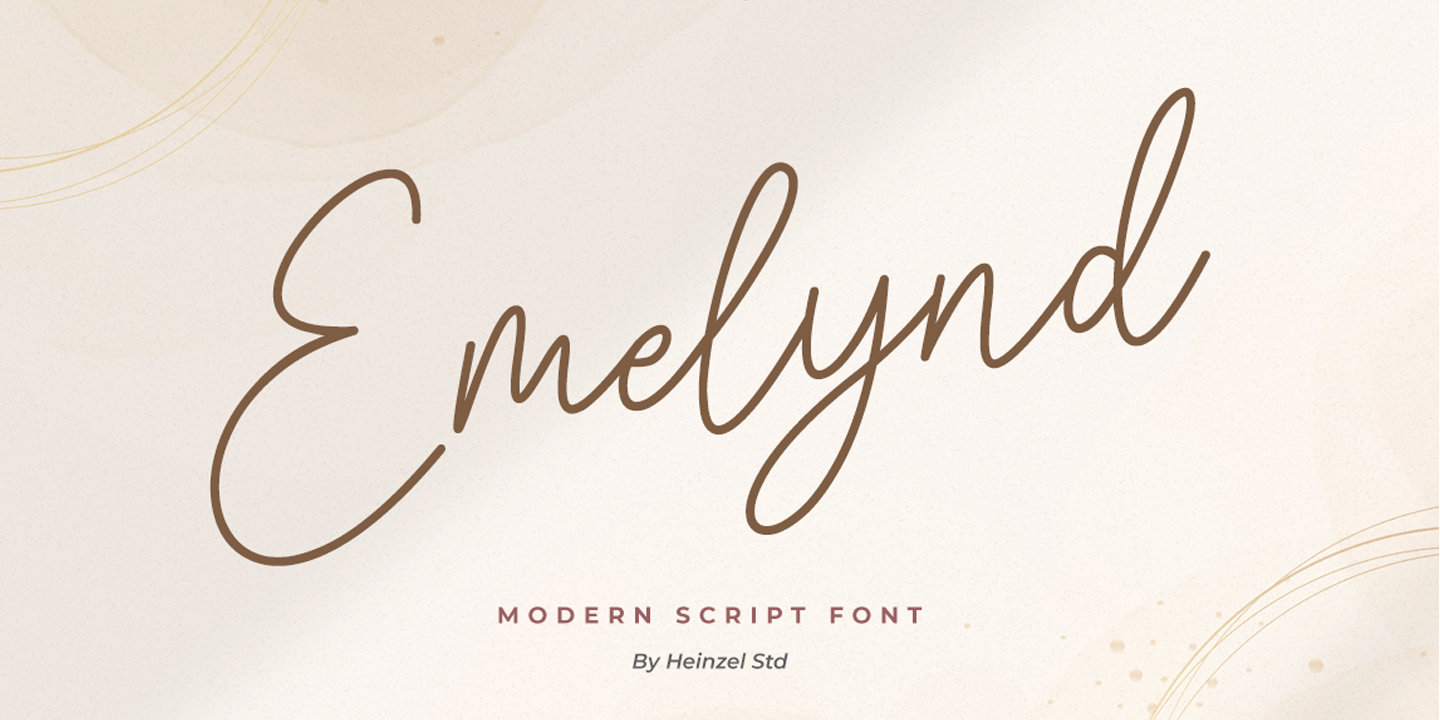
Discover the elegant Emelynd Font Free Download, a modern script typeface by Heinzel Std that exudes a handwritten, natural charm. This font is perfect for creating a sophisticated, stylish aesthetic. However, please note that you must purchase this font for commercial use. For testing purposes, you can download it for free and explore its graceful style.
The Emelynd Font is ideal for various applications, such as designing elegant wedding invitations, crafting stunning logos, creating romantic social media posts, or adding a personal touch to product packaging and watermarks. Its versatility and PUA-encoded glyphs make it a top choice for projects that demand a handwritten, elegant look.
Why is the Emelynd Font Free Download so exciting? Its smooth, flowing lines, varying baseline, and gorgeous alternates create a classic calligraphy vibe with a modern twist. The font’s natural elegance and stunning glyphs ensure your designs stand out with timeless sophistication and charm.
The Emelynd Font family includes variations like Regular, Bold, and Light, offering flexibility for diverse design needs. These styles allow you to experiment with different weights and effects, perfect for both print and digital media.